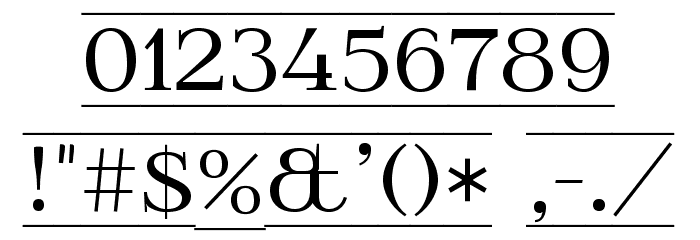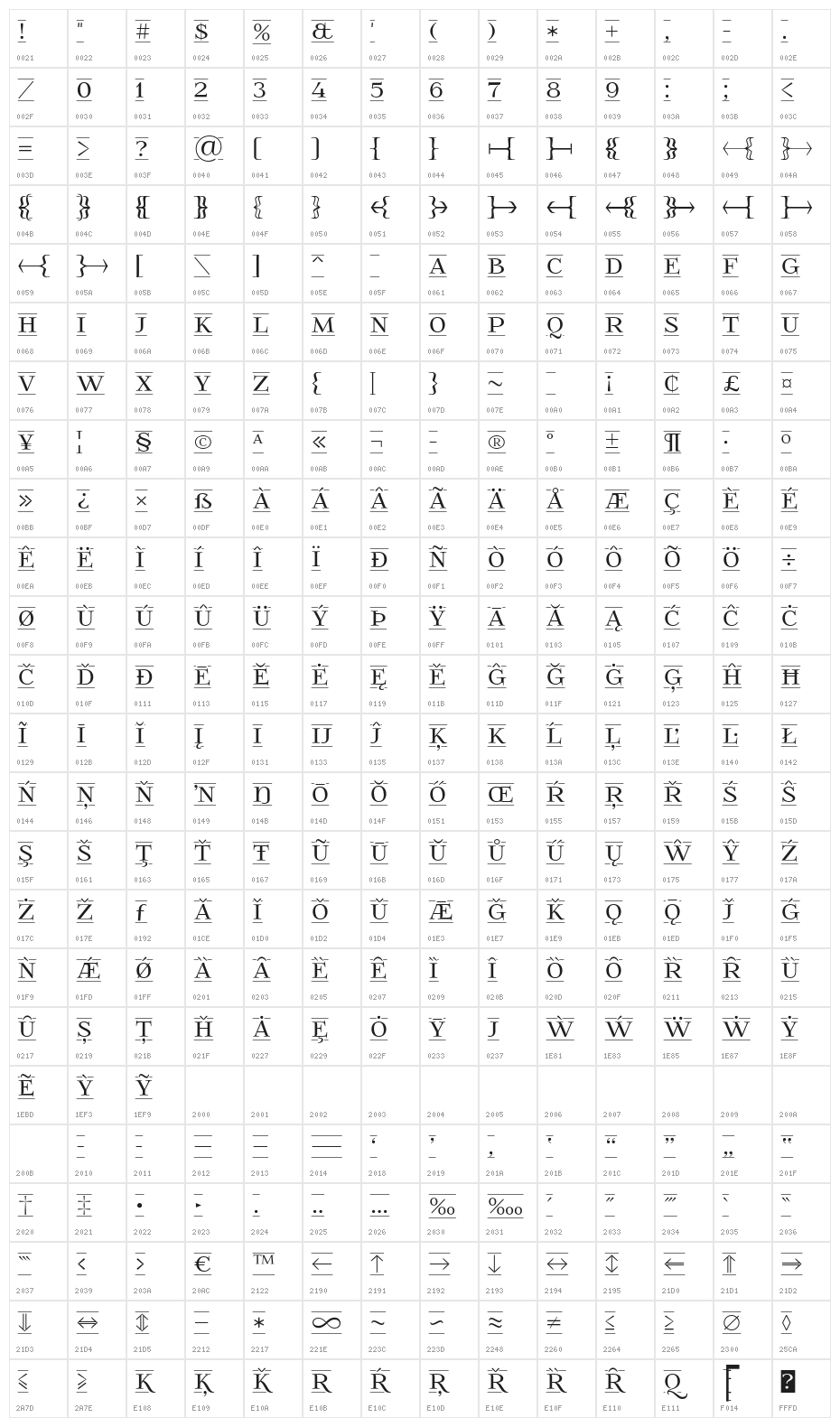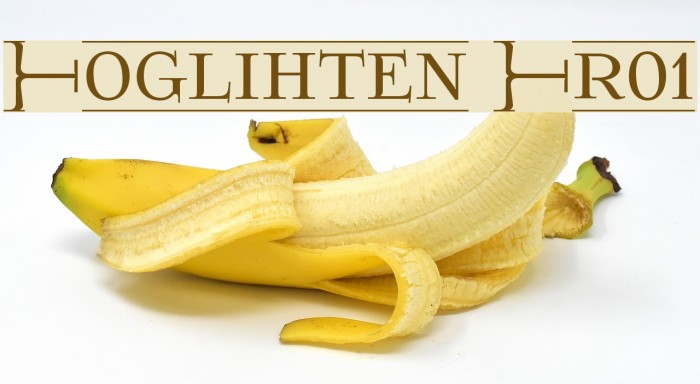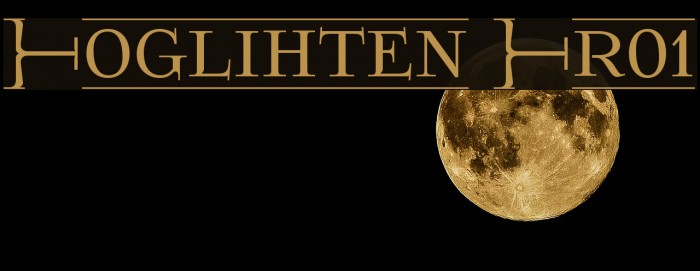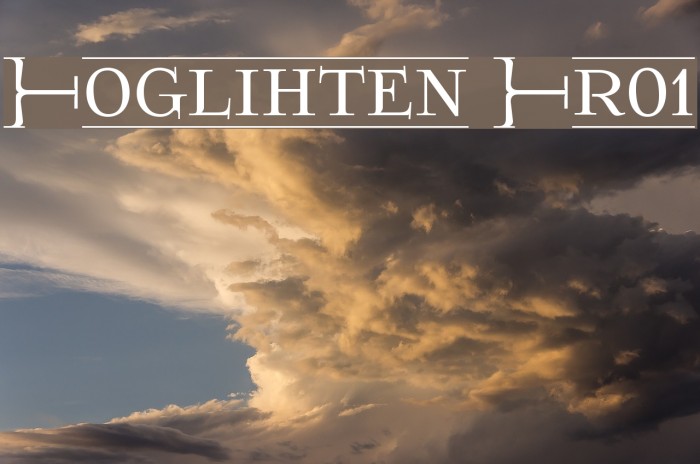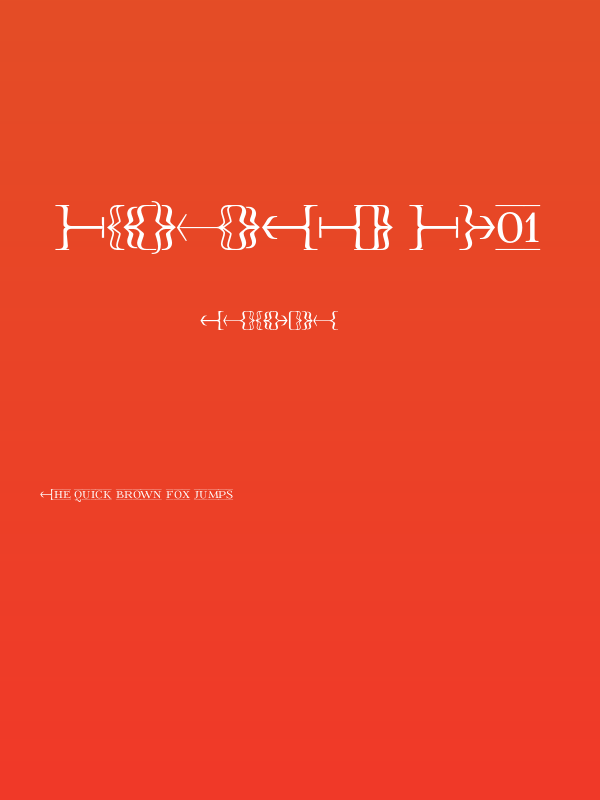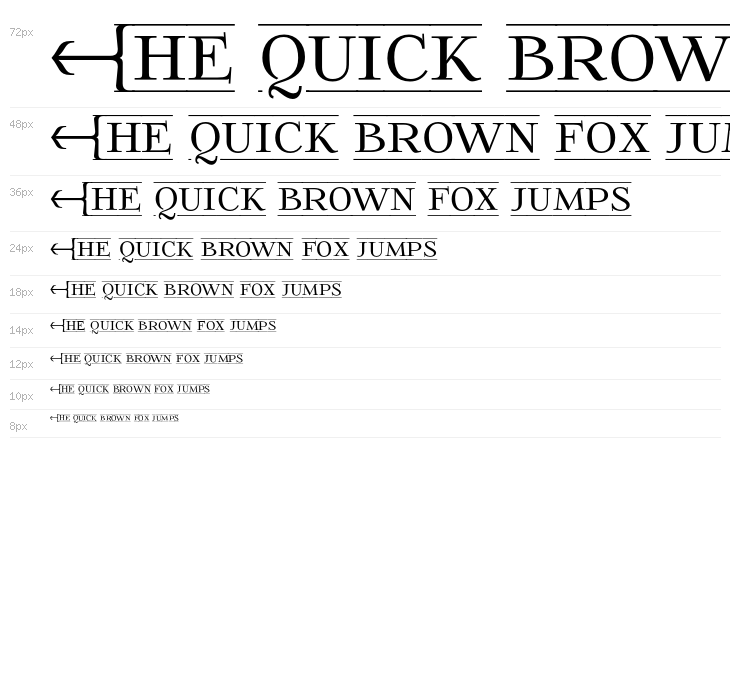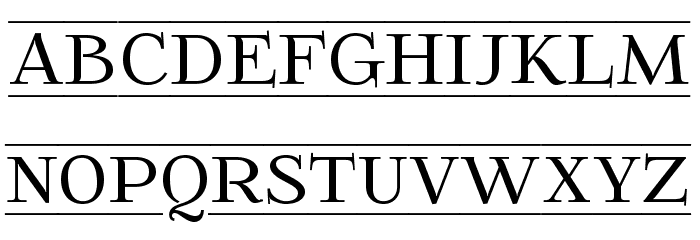
Foglihten Fr01 Font
Foglihten Fr01 Description
This font features a unique blend of classic and modern elements, characterized by its elegant serifs and balanced proportions. The uppercase letters are bold and commanding, with a slight flair on the serifs that adds a touch of sophistication. The lowercase letters maintain a consistent style, offering a harmonious flow that complements the uppercase. Numbers are clear and distinct, making them suitable for both display and text purposes. The special characters are designed with precision, ensuring they integrate seamlessly with the rest of the typeface. Overall, this font exudes a timeless appeal, making it versatile for various design applications.
| Proposed Projects | Ideal for editorial design, book covers, branding, and formal invitations. |